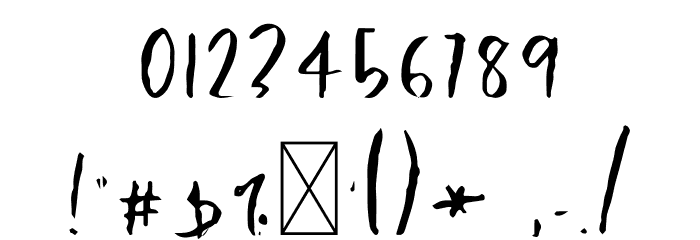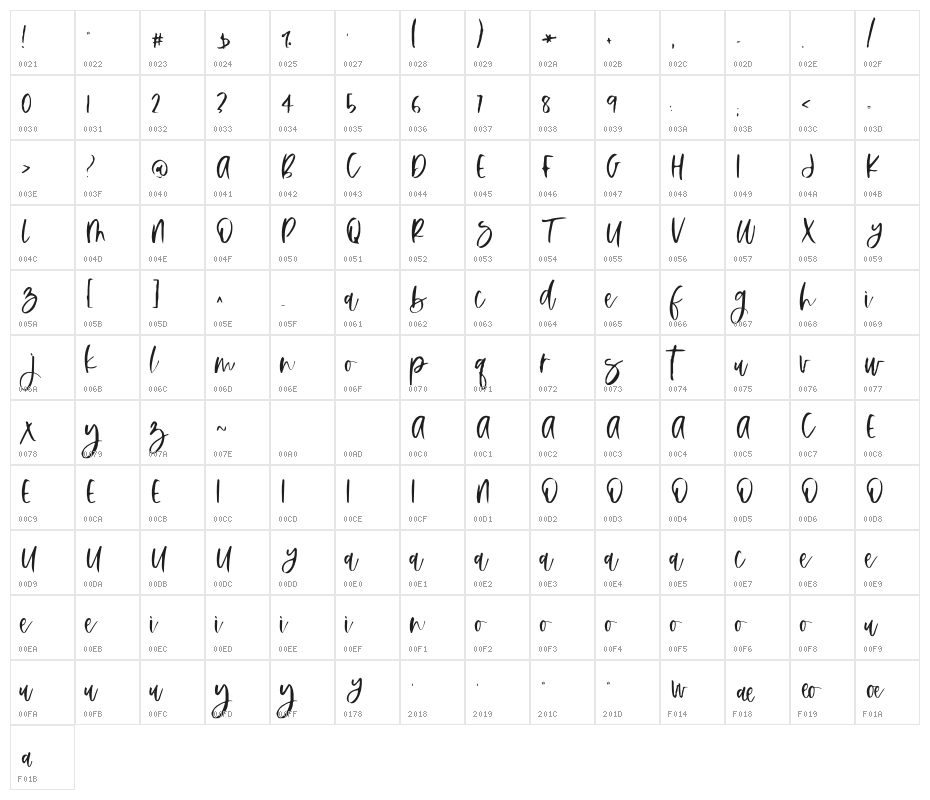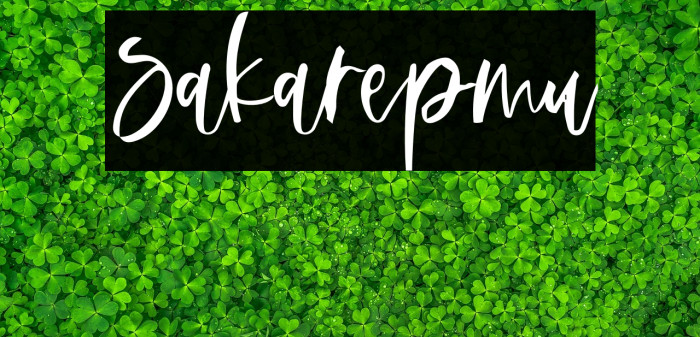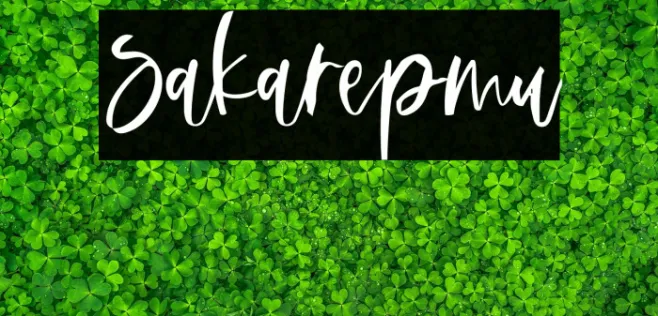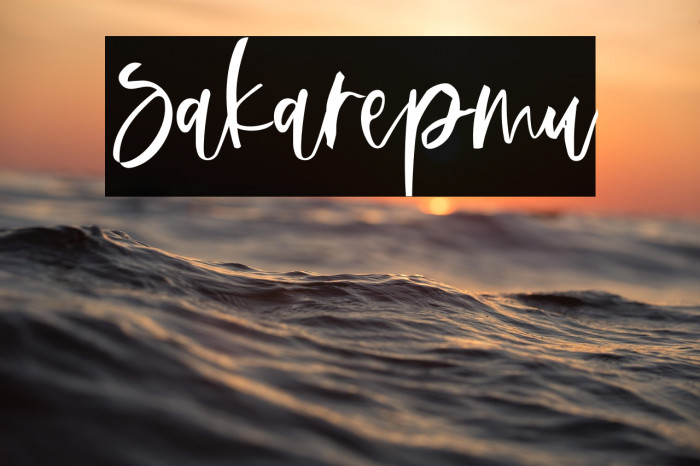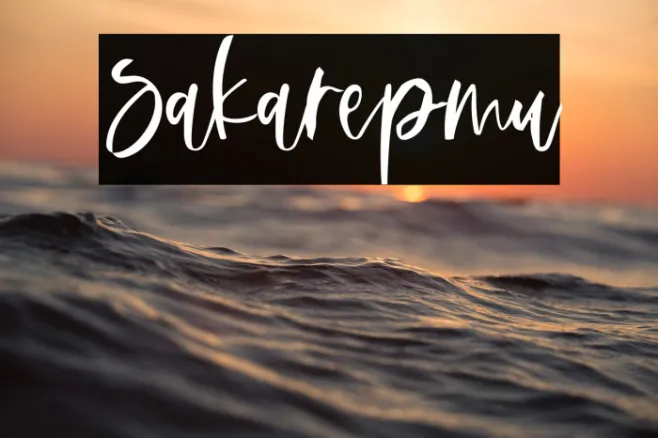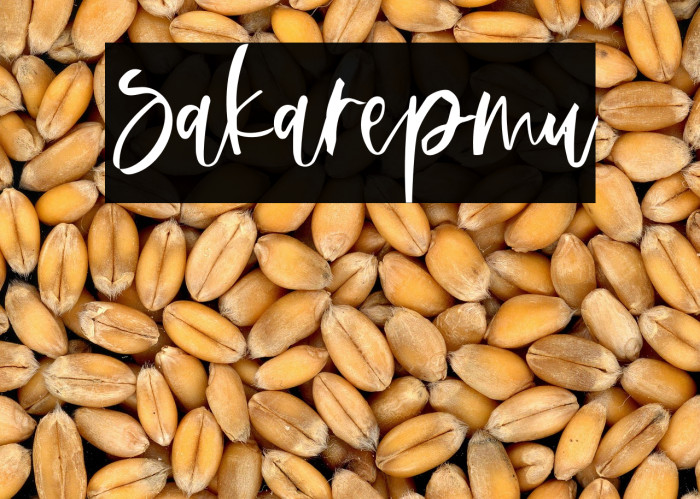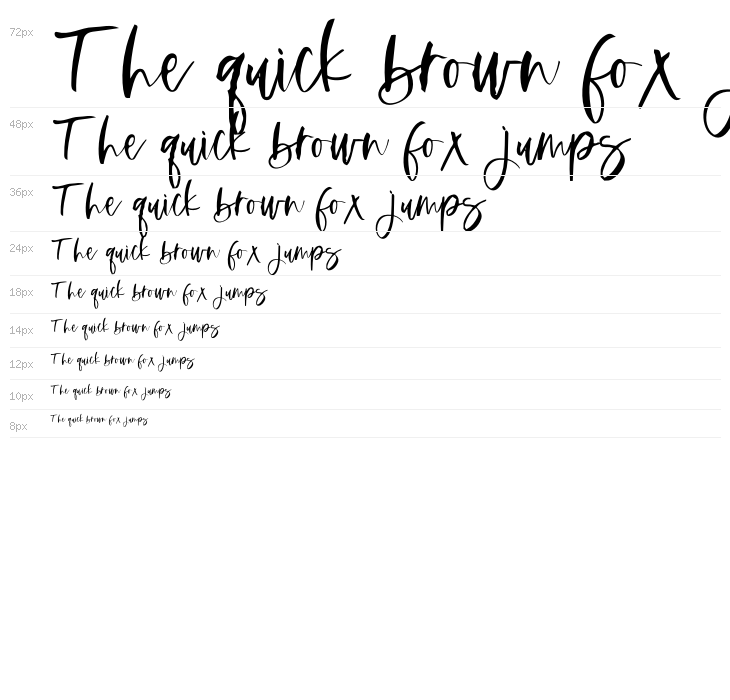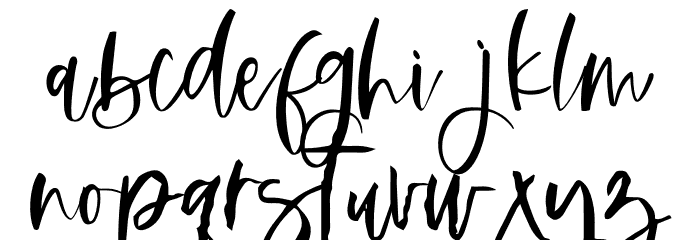
Sakarepmu Font
Sakarepmu Description
This font features a lively and expressive handwritten style, characterized by its fluid and dynamic strokes. The letters exhibit a playful yet elegant appearance, with varying thickness that adds a sense of movement and personality. The uppercase and lowercase letters maintain a consistent style, while numbers and special characters blend seamlessly into the overall design. The font's organic and free-flowing nature makes it ideal for creative projects that require a personal touch.